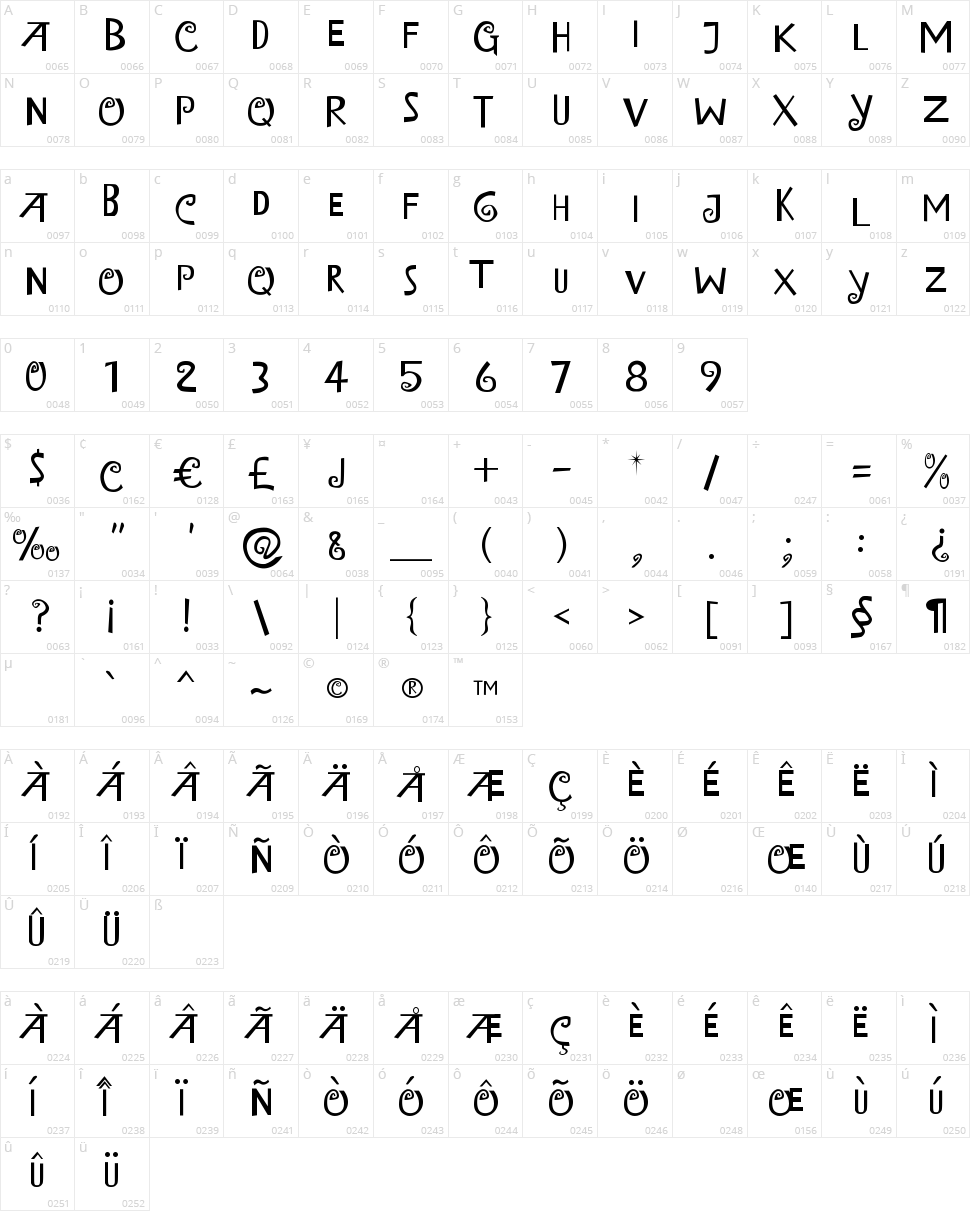
Island of Misfit Toys
This is fan-produced material intended to promote interest in the TV Specials of Rankin/Bass. I include the GE logo since at the time General Electric was a sponsor of Rudolph the Red Nosed Reindeer
This set includes 2 fonts the Reg offset and the Alt. inline font.